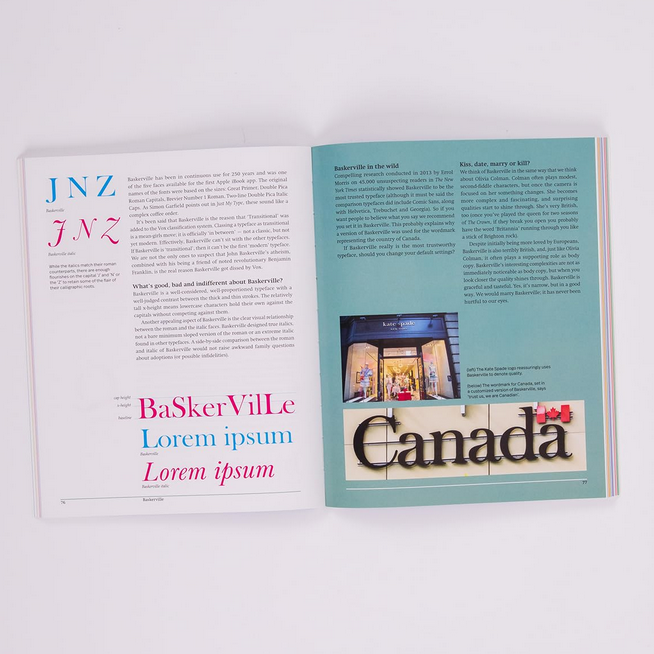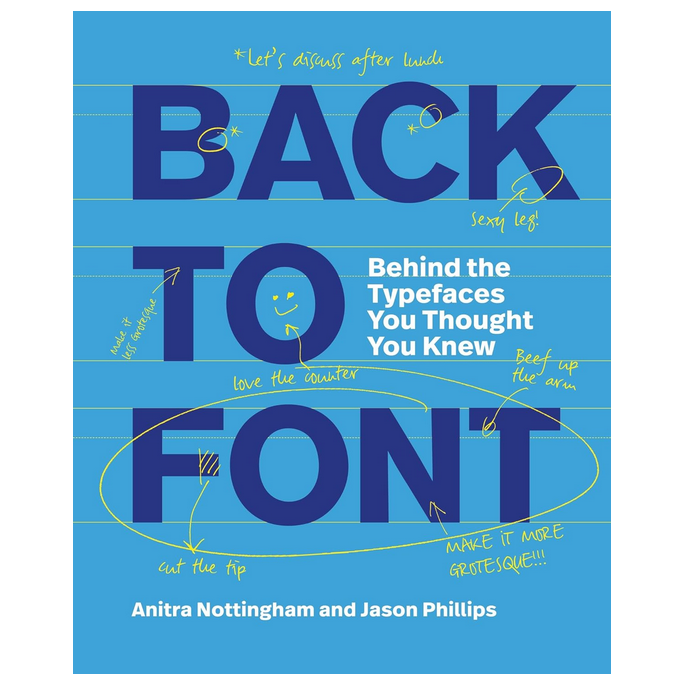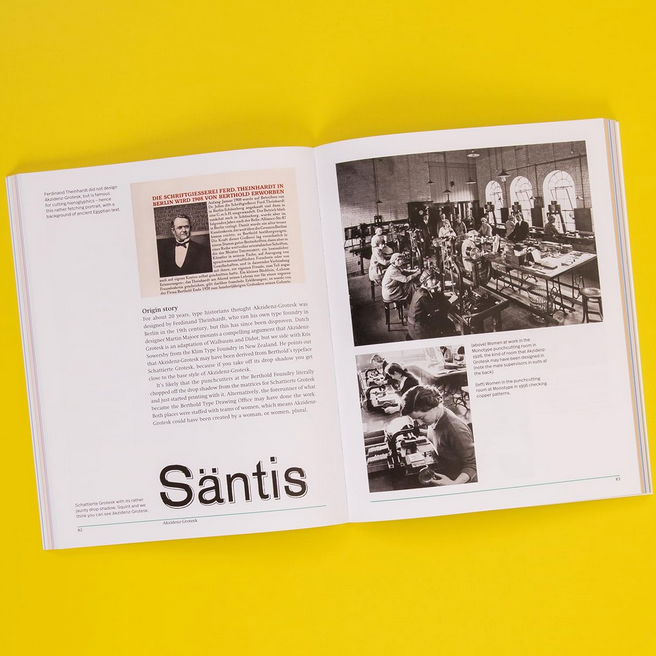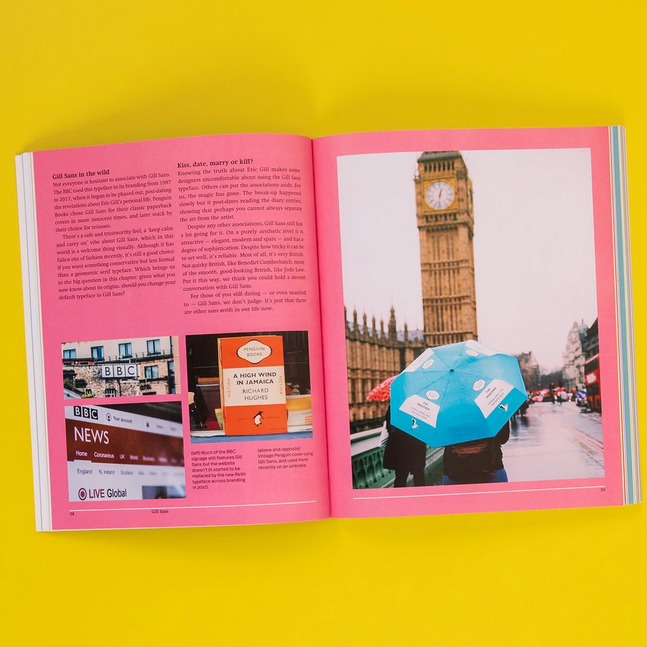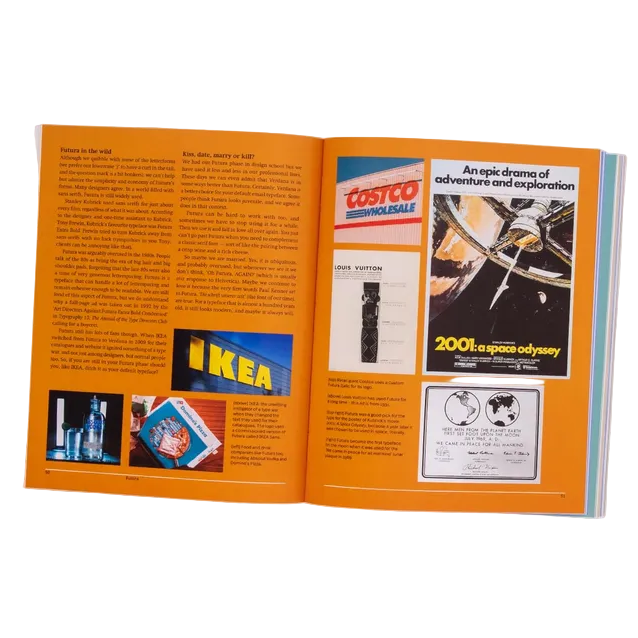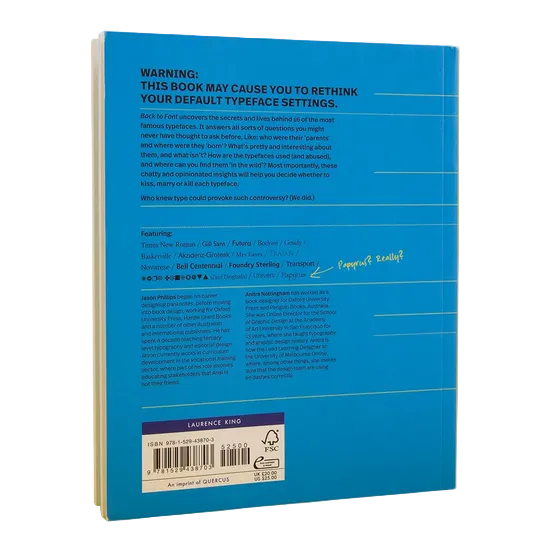
Back to Font - Behind the Typefaces You Thought You Knew
Kiss, marry or avoid? Not a question you thought you'd be posing about typefaces, perhaps, but in Back to Font 16 favourite fonts get the full biographical treatment - from 'parentage' to personality, from type 'anatomy' to appraisal of legs (K), arms (T) and even crotch (that'll be the V and the Y...). All so that you can pick your favourite and run off into the digital sunset with some italic Bodoni type or maybe just boring old Times New Roman...
Great fun for font fans and lots to learn in a fun and accessible manner. Would make a fantastic gift for graphics and typography students.